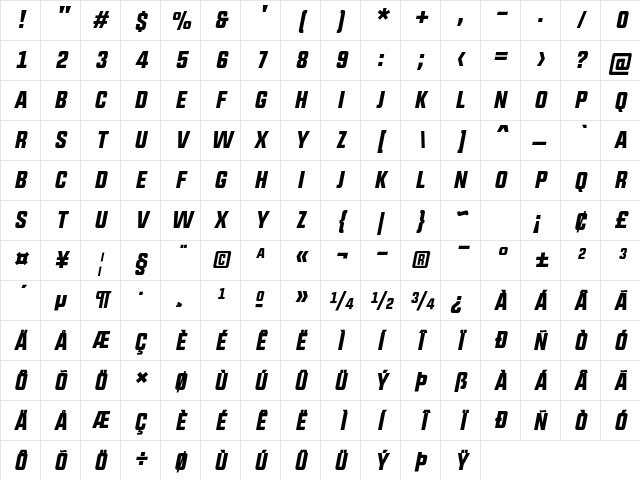
UPBOLTERS Italic
Designer: Situjuh Nazara
Design Context for UPBOLTERS
UPBOLTERS is a composed and adaptable typeface that performs quietly and consistently across a wide range of design contexts. The slanted form adds forward momentum and visual energy.
Pro Tip: Use UPBOLTERS for emphasis, pull quotes, and subheadings where its slanted energy can add rhythm to the layout.